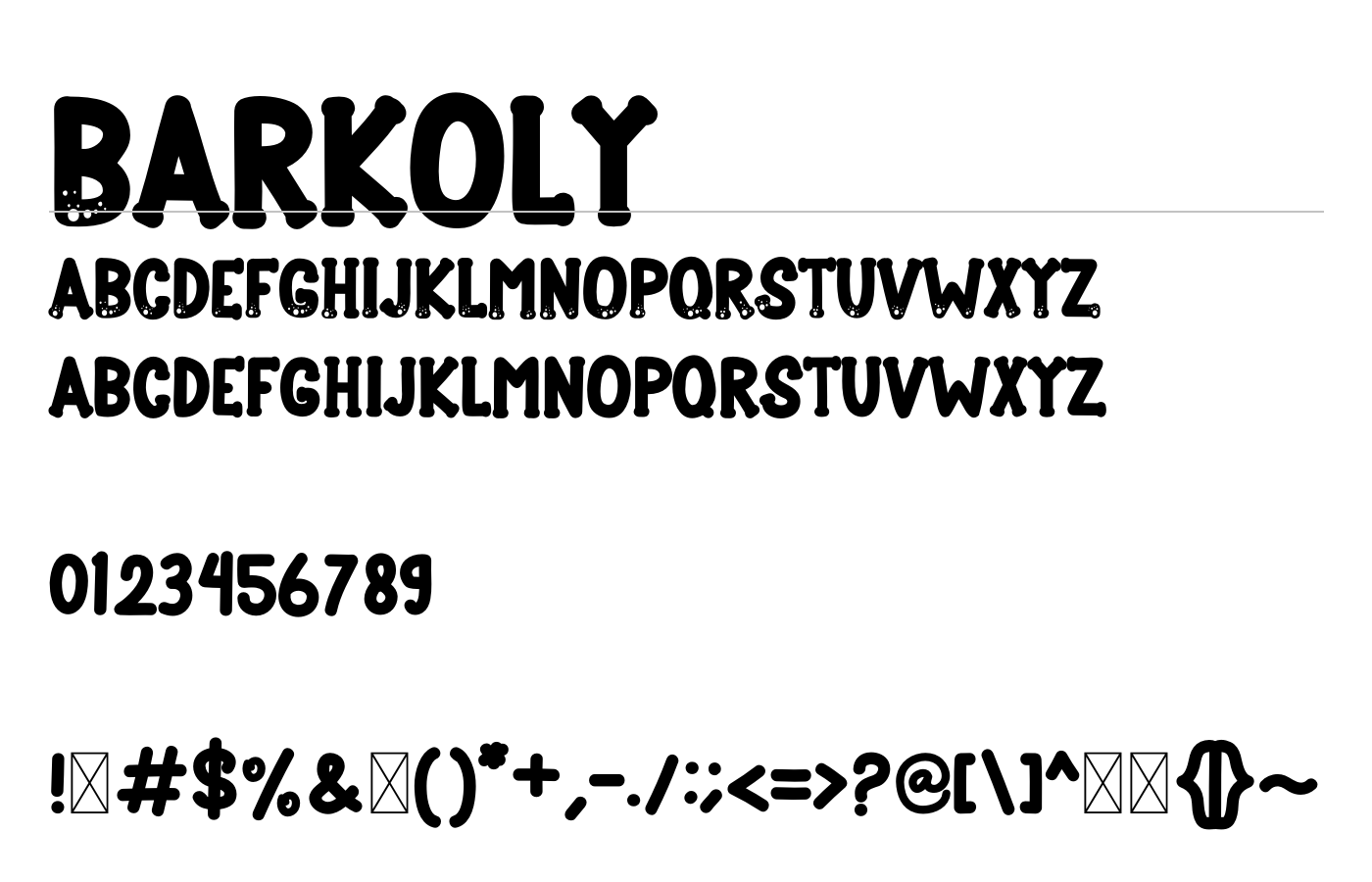
Barkoly is a playful, bold sans serif font with rounded edges that give it a friendly and approachable feel. Its thick, consistent strokes and slightly condensed letterforms make it ideal for fun and casual designs, such as children’s books, posters, or branding that seeks to convey warmth and creativity. This font stands out with its quirky details and strong personality, making it perfect for eye-catching headlines and informal use.
Barkoly Font
About Barkoly Font